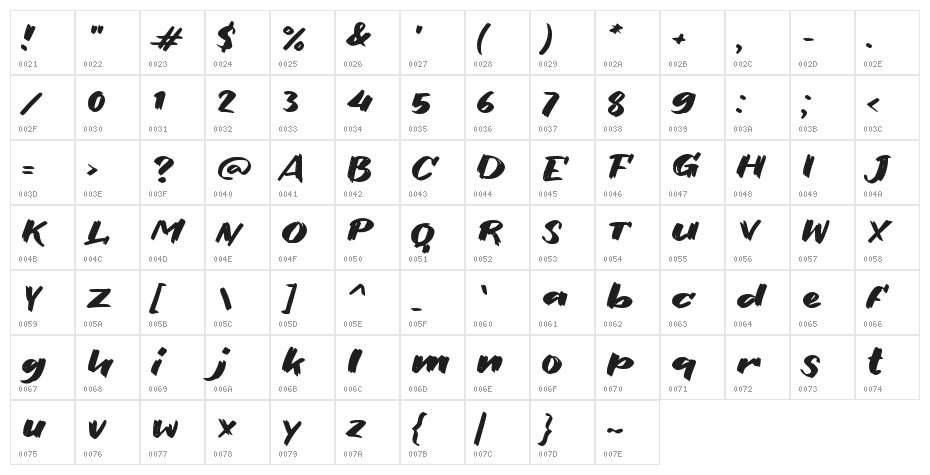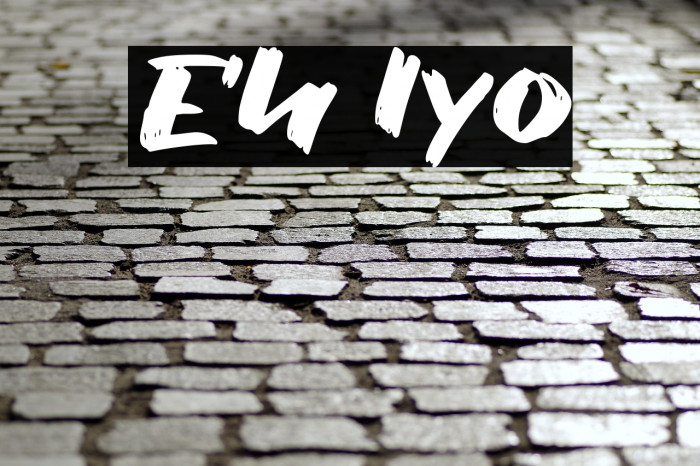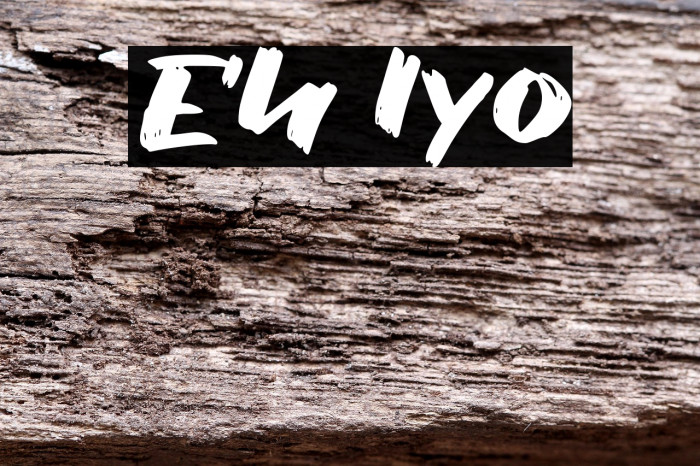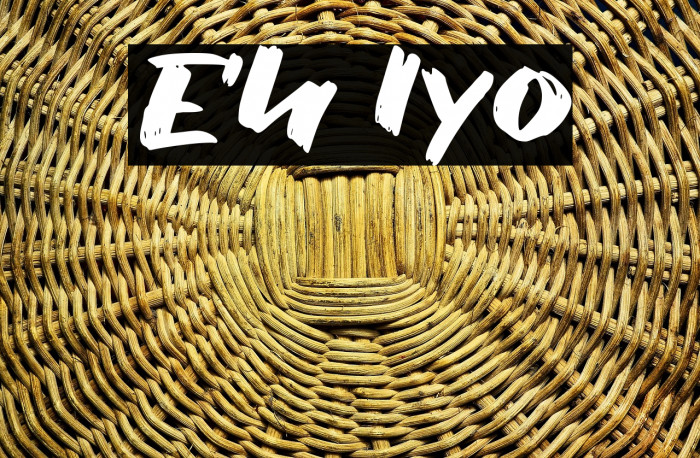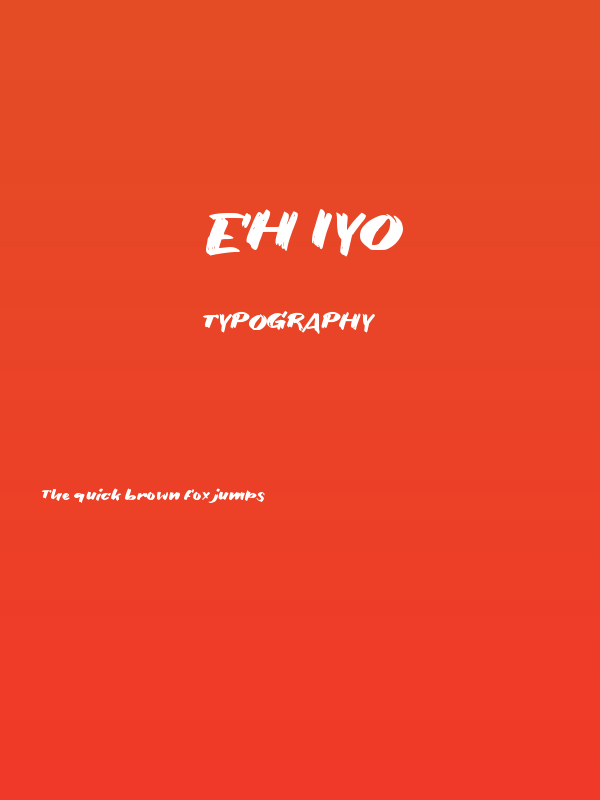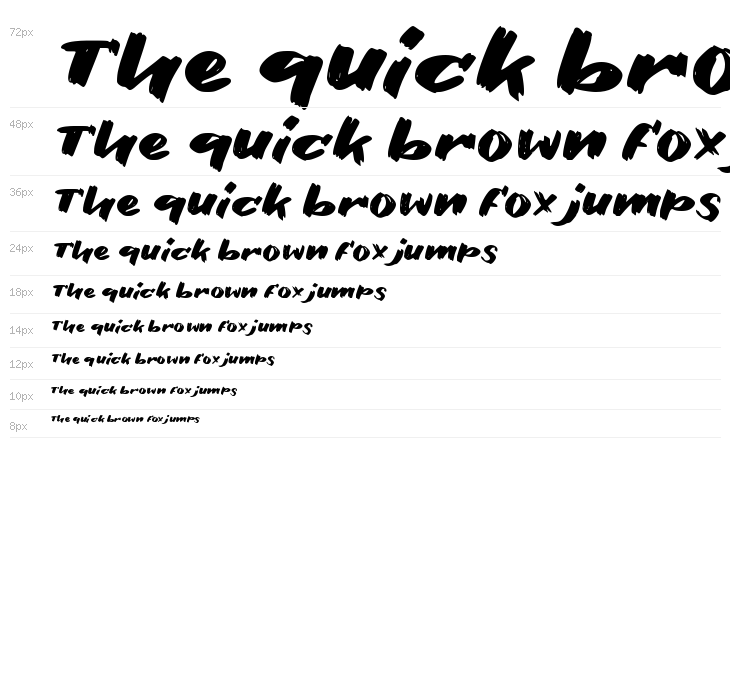
Eh Iyo Font
Eh Iyo Description
This font features a bold and expressive brush style, characterized by its dynamic and energetic strokes. The letters have a hand-painted appearance, with varying thickness and a slightly rough texture that adds to its artistic flair. The uppercase and lowercase letters maintain a consistent style, while the numbers and special characters complement the overall design. This font exudes a sense of creativity and spontaneity, making it ideal for projects that require a personal touch.
| Proposed Projects | Ideal for artistic projects, posters, branding, and any design that requires a creative and personal touch. |